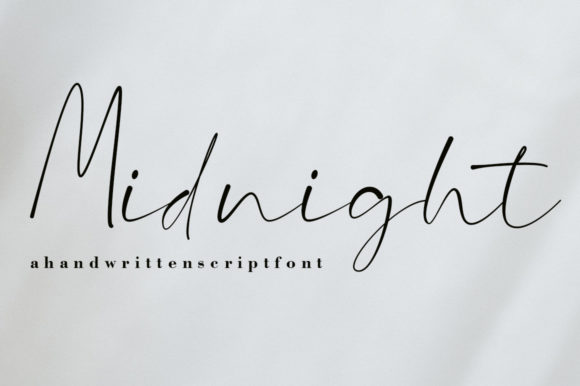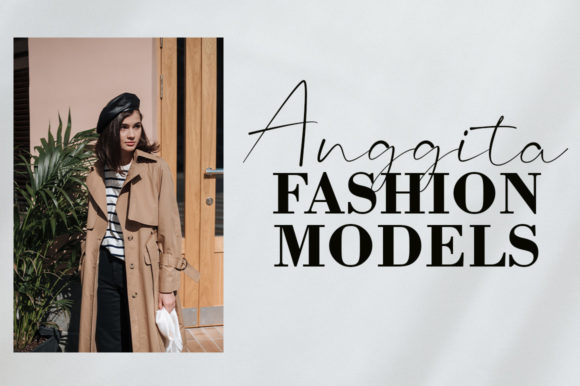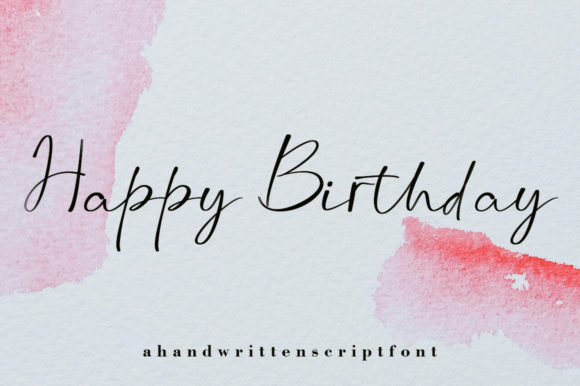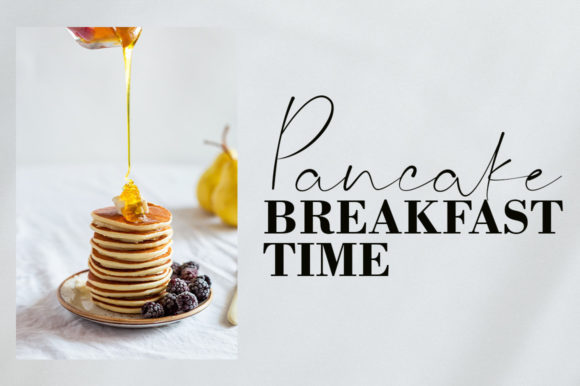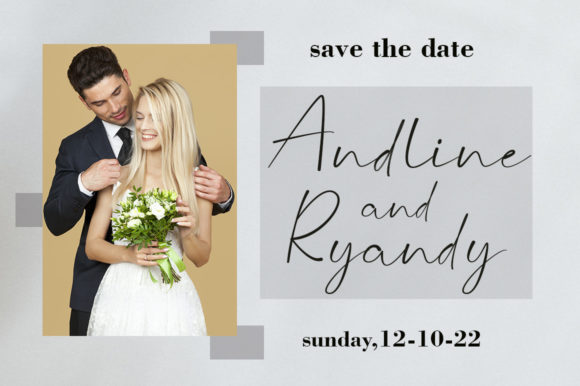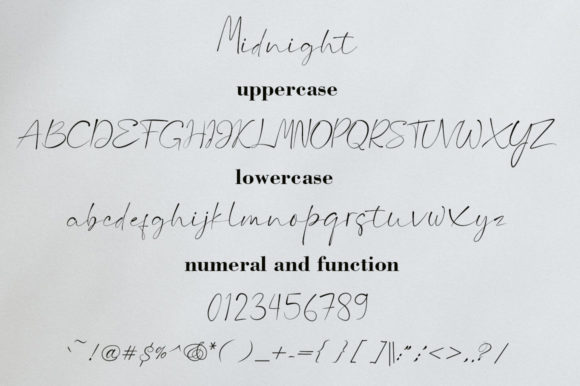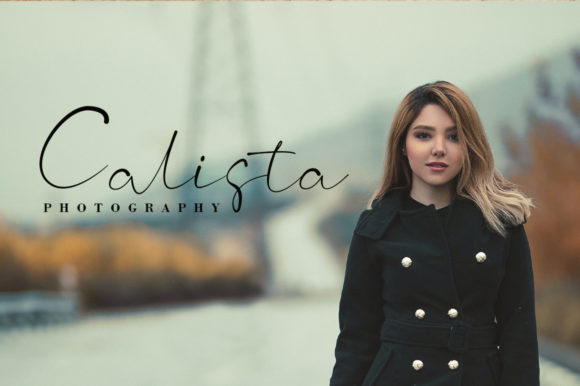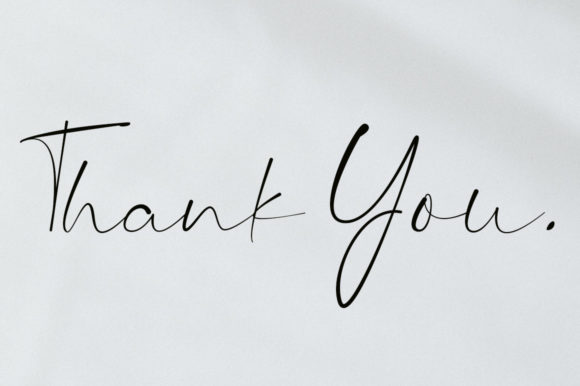
Midnight Font
About Midnight Font
Midnight is a sweet and cursive handwritten font. This gentle font will look gorgeous on a variety of design ideas. It will add a joyful and romantic touch to each of your projects!